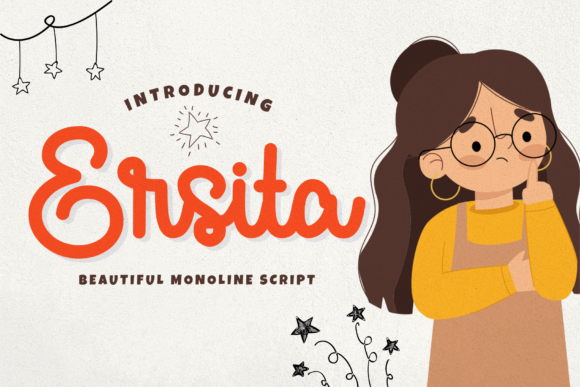
Dive into the world of elegance and charm with Ersita Font, a captivating script font family that will add a touch of magic to your creative projects. Step into a world where your words dance with grace and your designs come alive with an unmatched charm.
Crafted with meticulous attention to detail, Ersita Font boasts a perfect balance of delicate strokes and bold curves, creating a visual harmony that is both pleasing to the eye and impactful in its presence. Not too thin, not too thick, Ersita achieves a harmonious equilibrium, ensuring that your messages stand out with clarity and style.
With its varied character set, Ersita Font offers a diverse range of options to suit any project or design vision. From elegant invitations to heartfelt greeting cards, from stunning social media posts to eye-catching branding materials, Ersita Font effortlessly adapts to your creative needs, adding a touch of sophistication and charm wherever it's used.
Whether you're a seasoned designer seeking to elevate your projects or a creative enthusiast searching for a font that captures the essence of beauty, Ersita Font is your perfect companion. Its versatility knows no bounds, making it an indispensable tool for designers, bloggers, marketers, and anyone seeking to add a touch of elegance to their digital creations.
So, embrace the allure of Ersita Font and let your creativity soar. Transform your projects into works of art, captivate your audience with messages that resonate, and leave a lasting impression with every design you create. Let Ersita Font be your guiding light on this journey of visual storytelling and artistic expression.